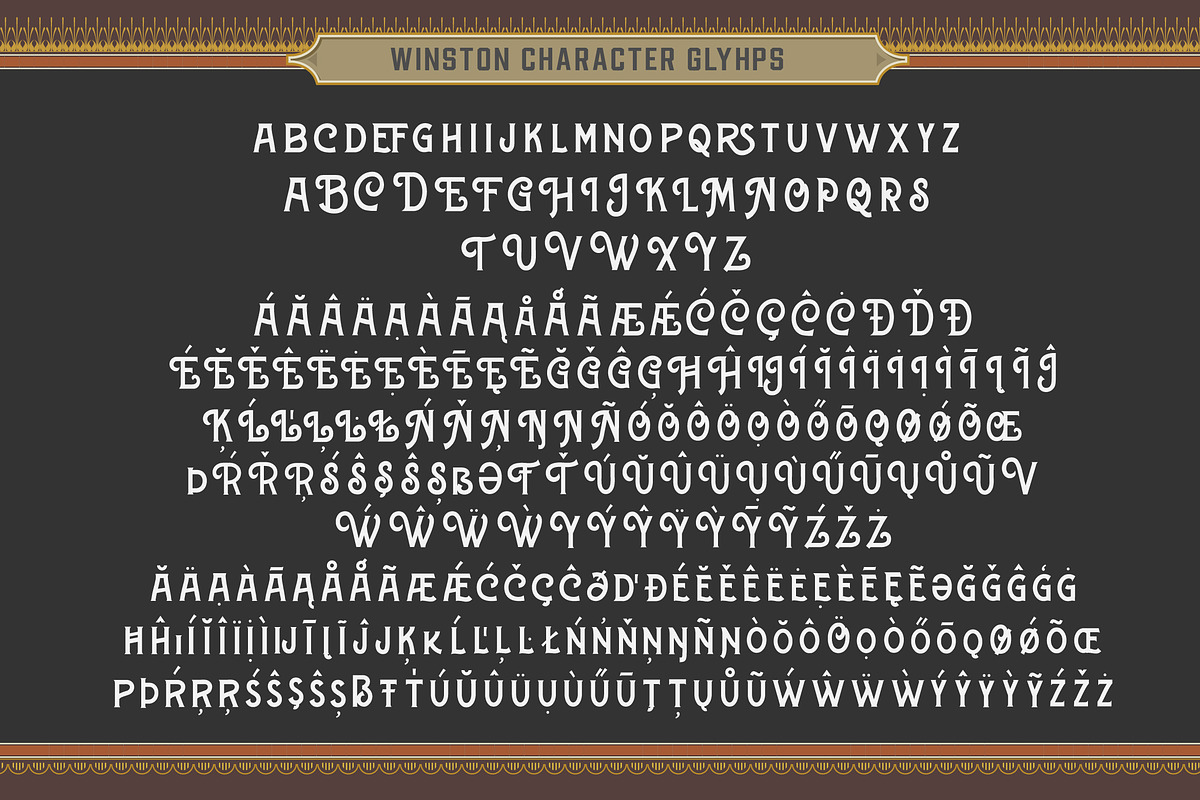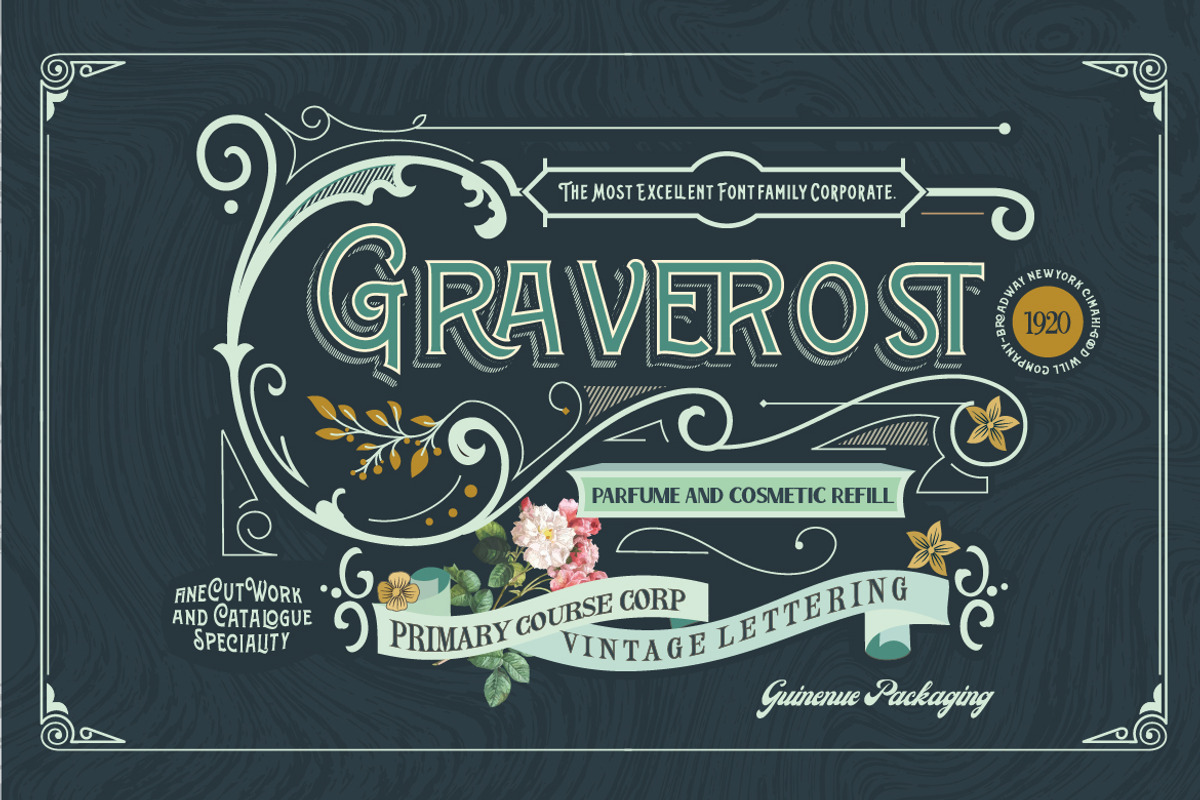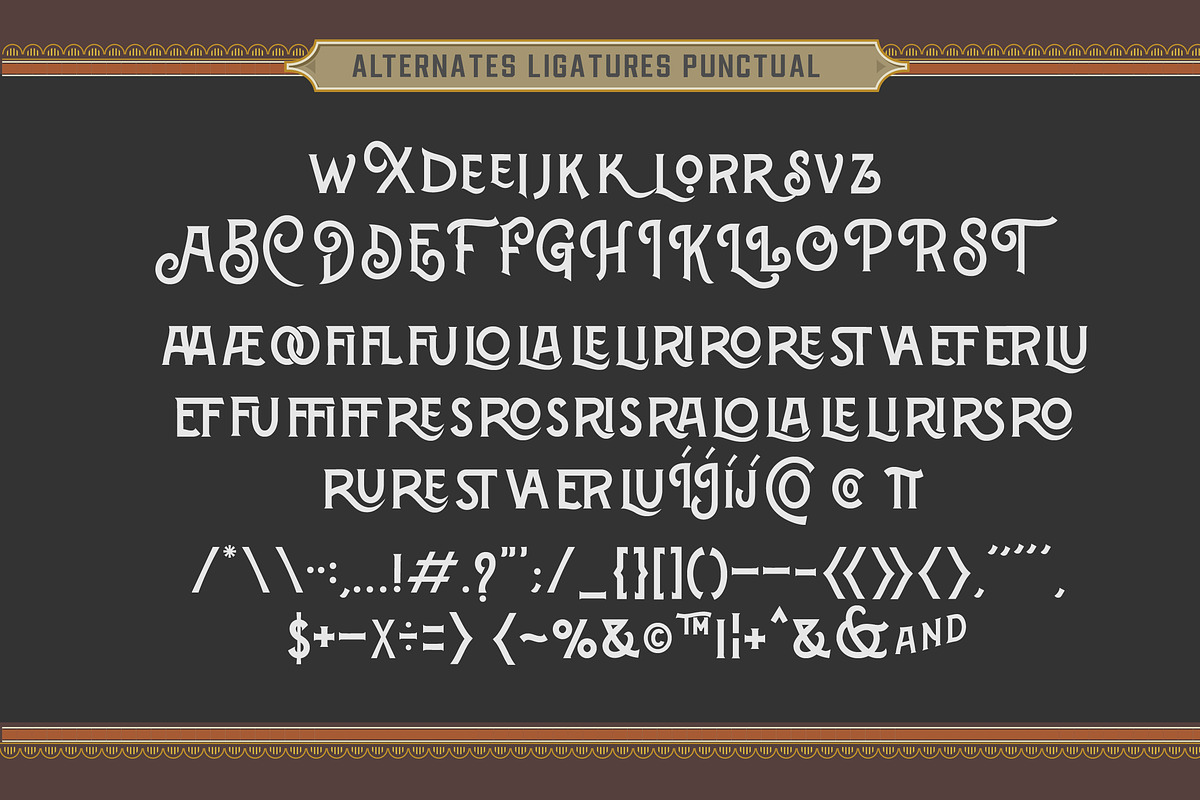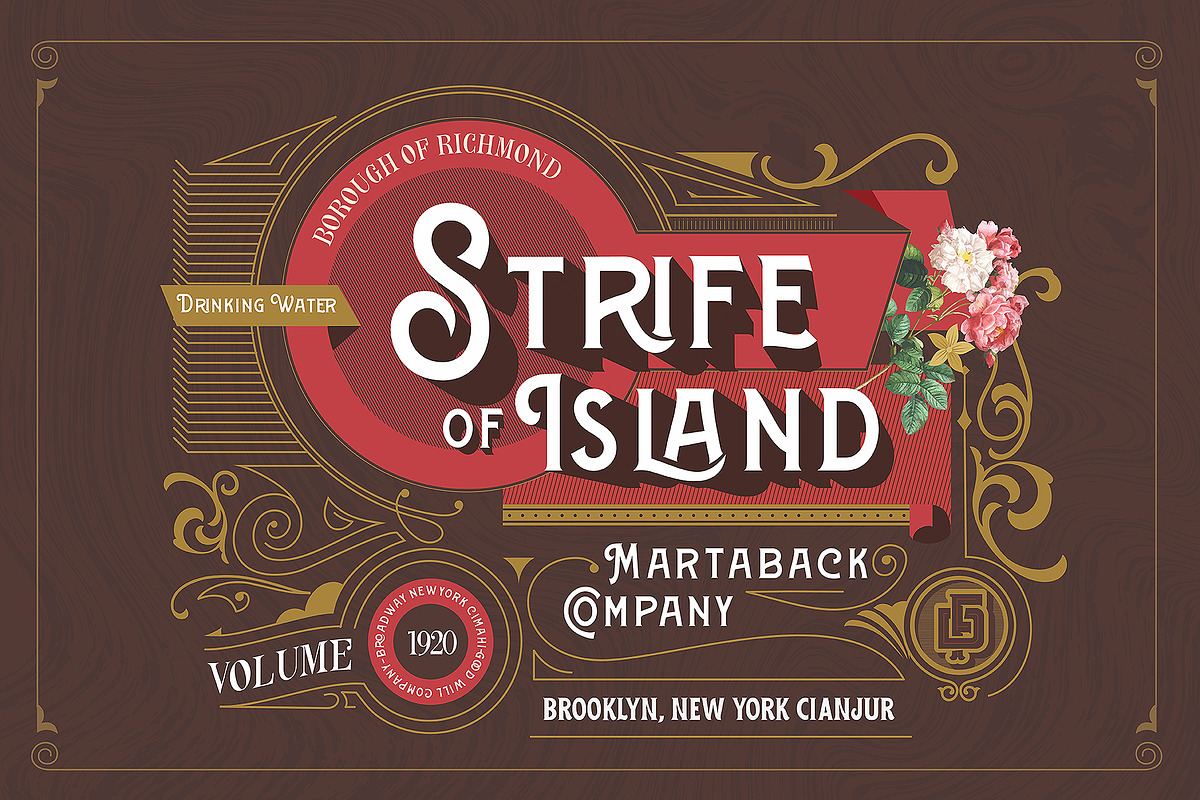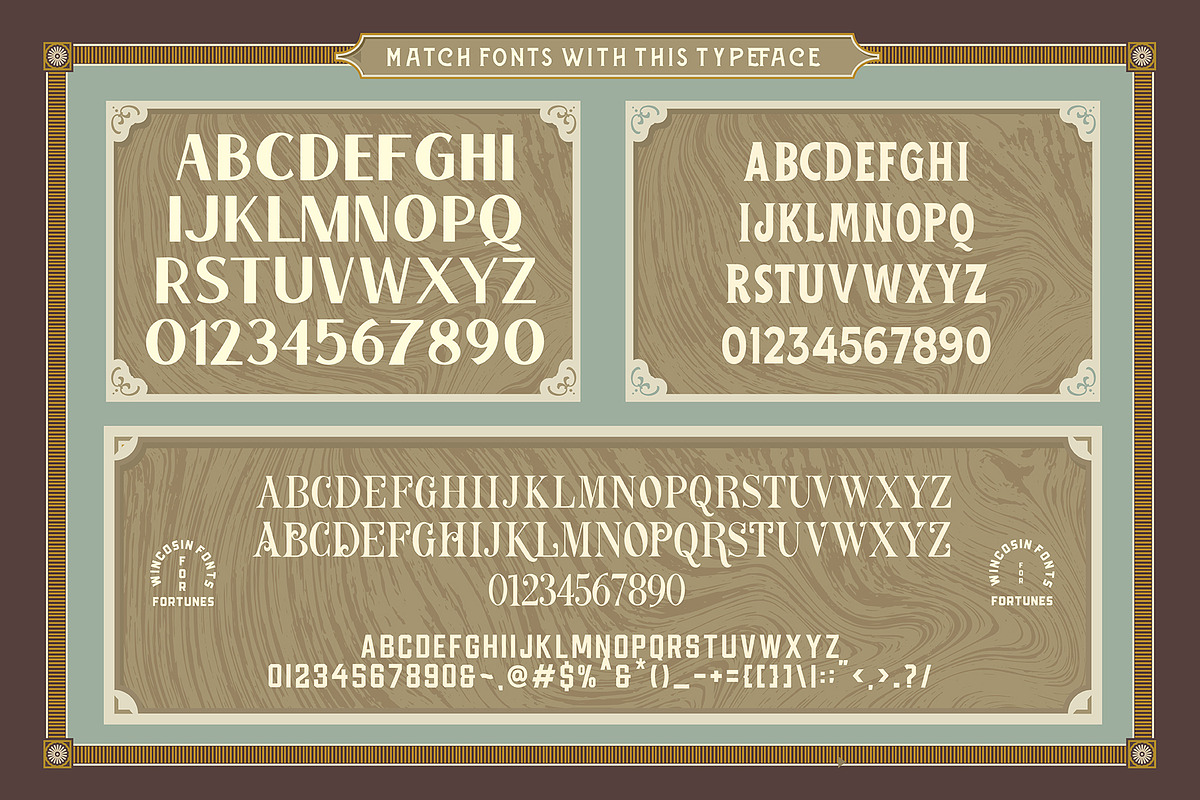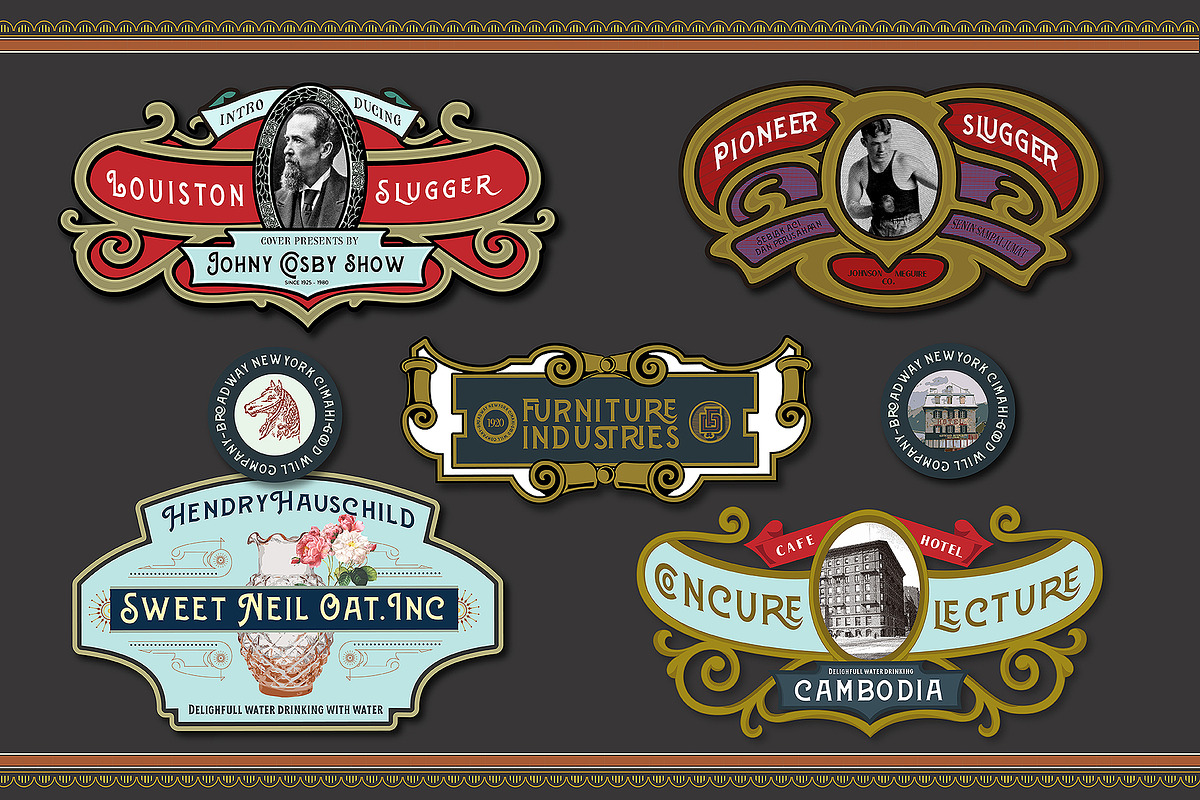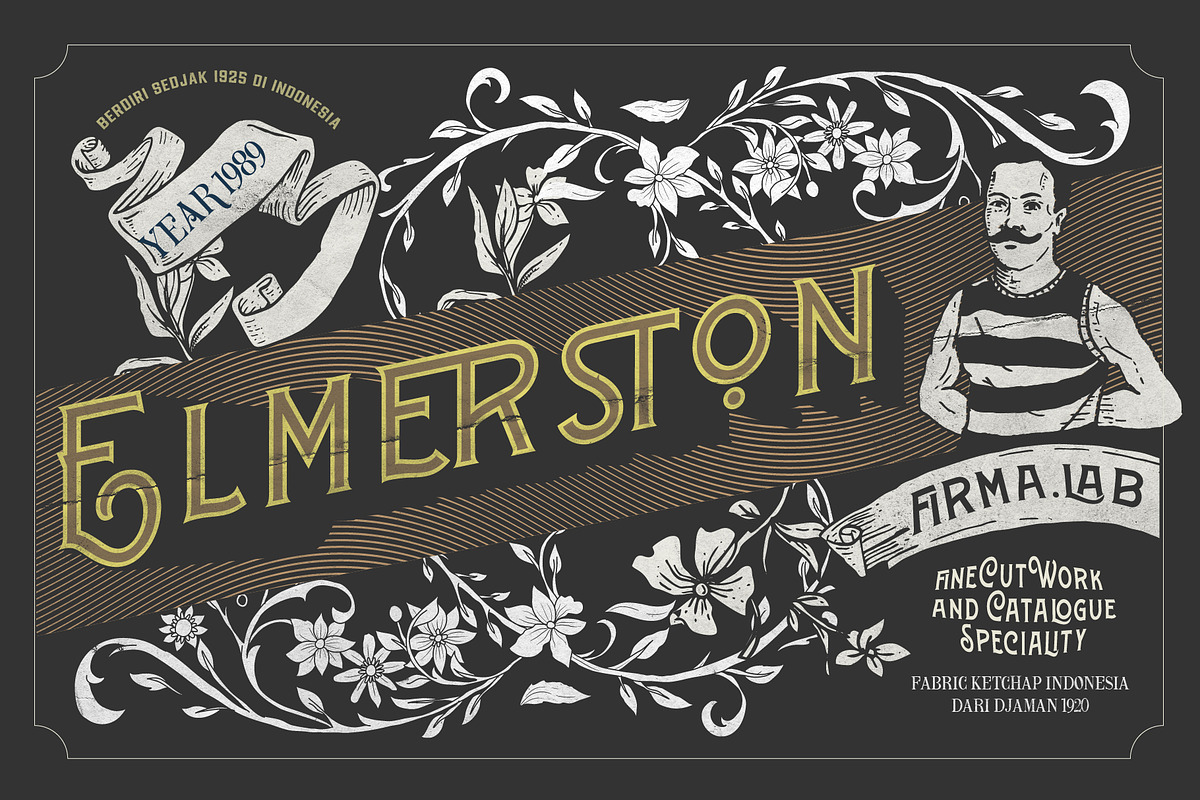
Wincosin Vintage & Package Fonts
Winston Vintage is vintage layering typeface based from vintage era, suitable for vintage, classic labeling signage, support multiple foreign language (refer on display preview no 2 to see all glyphs), Get Carlsons fonts type & extras, just to completed classic theme. with original vector preview you will get offering 14 days off - After that will back to 8 fonts Wincosing only
Wincosin Vintage & Package Fonts by Fortunes Co fits naturally into Branding, posters, packaging, typography.